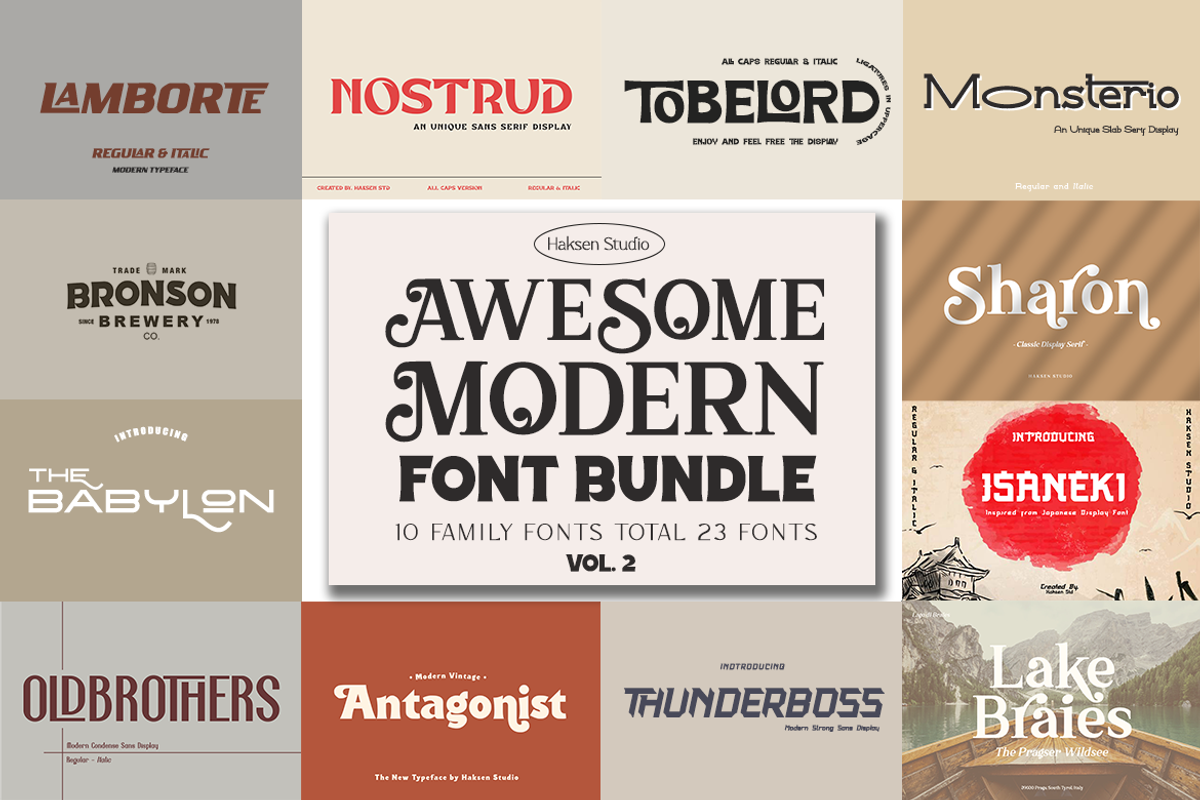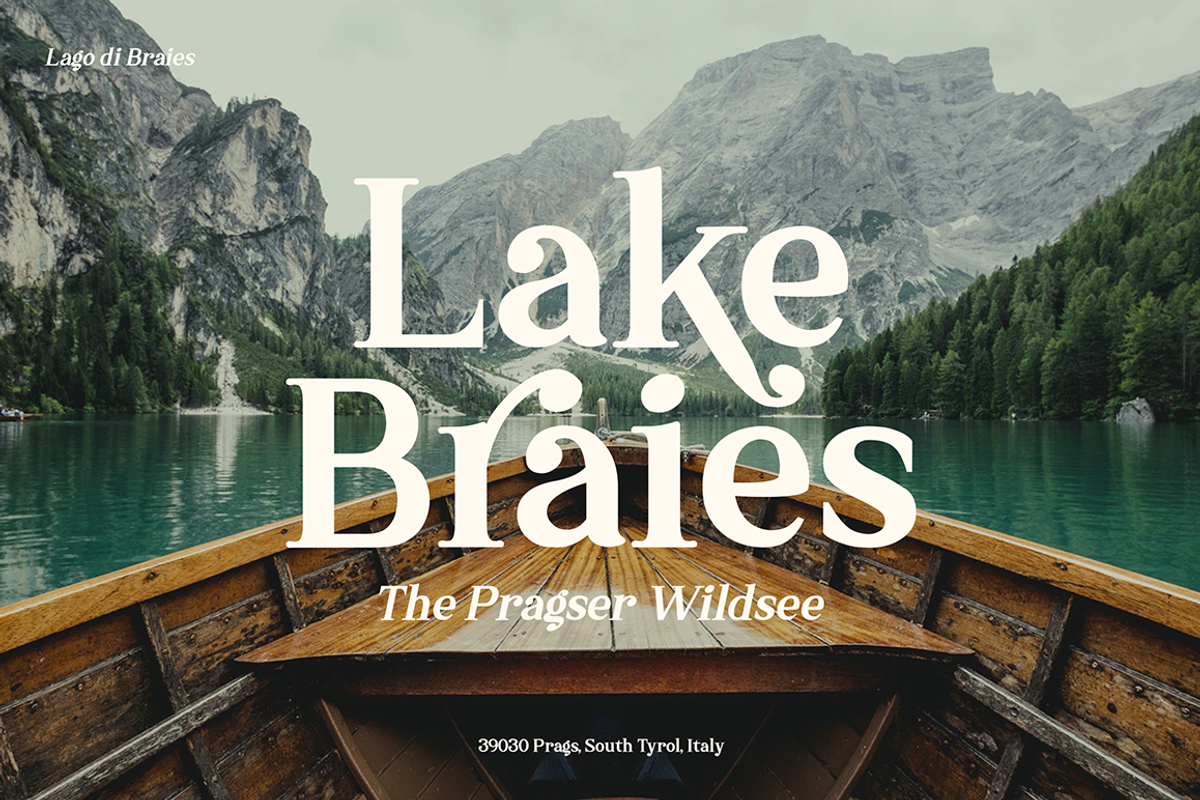
Awesome Modern Font Bundle Vol-2
Based on our experience as a graphic designer who works for a lot of companies, we often are requested to design a logo in a unique style but with a Meaningful feels. So, we try to brainstorming and create some of unique font to make the idea is going out with ready to use easily. This is perfect for BRANDING and LOGO DESIGN. You will get unique, modern, meaningful, and certainly make your branding or design projects more standout with this fonts.
BEST-SELLING FONTS IN THIS BUNDLE :
- Ligatures and Alternative Character Glyphs